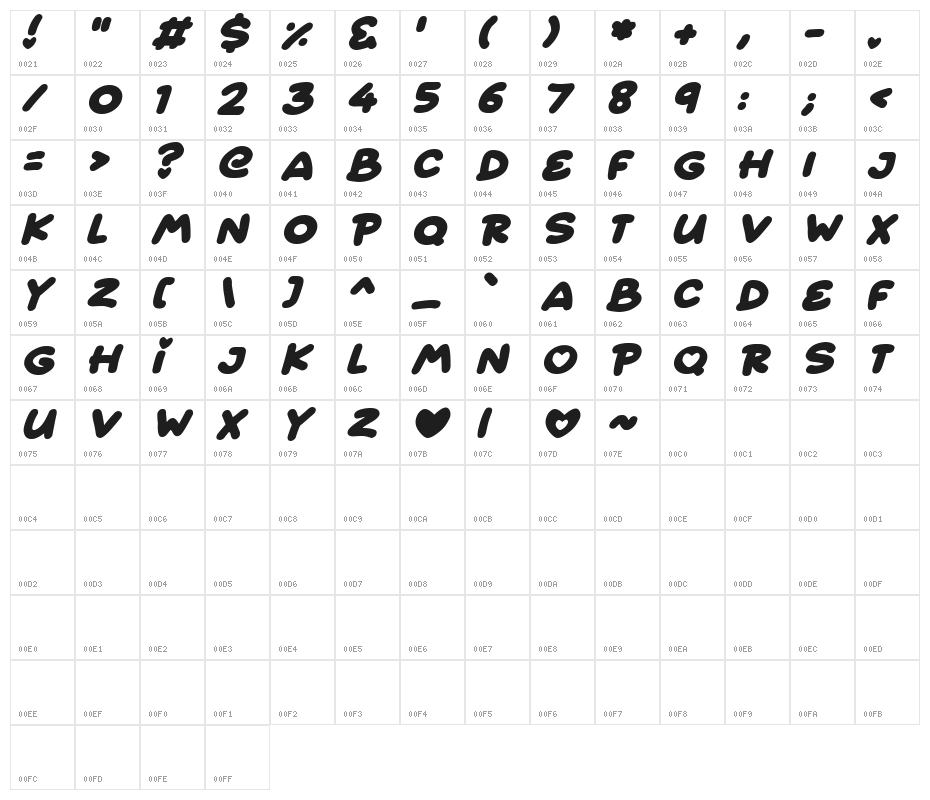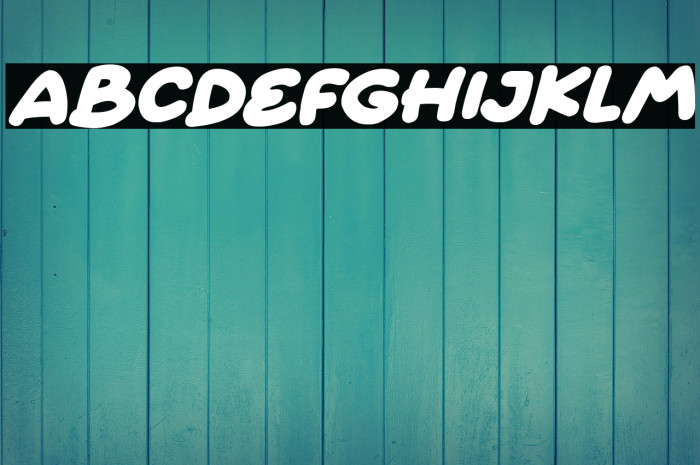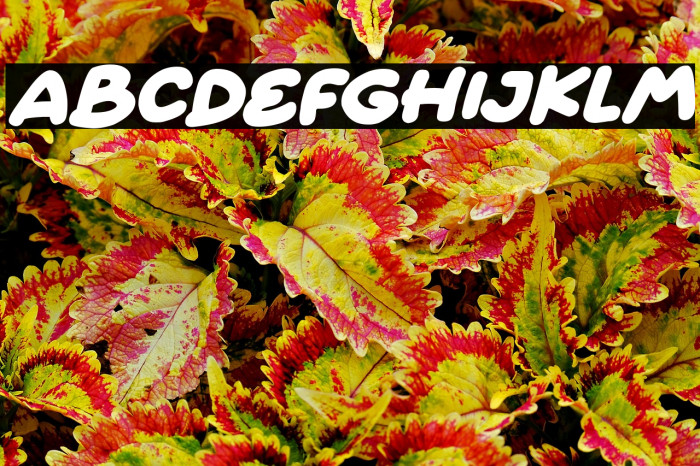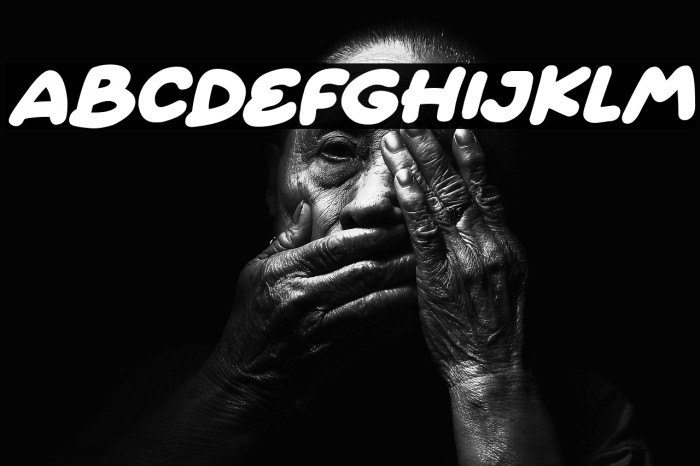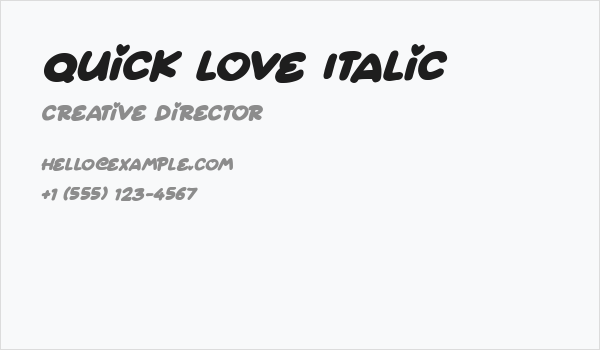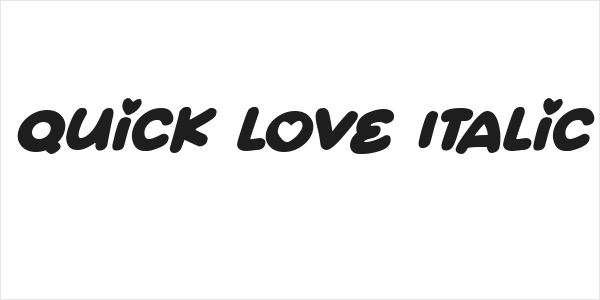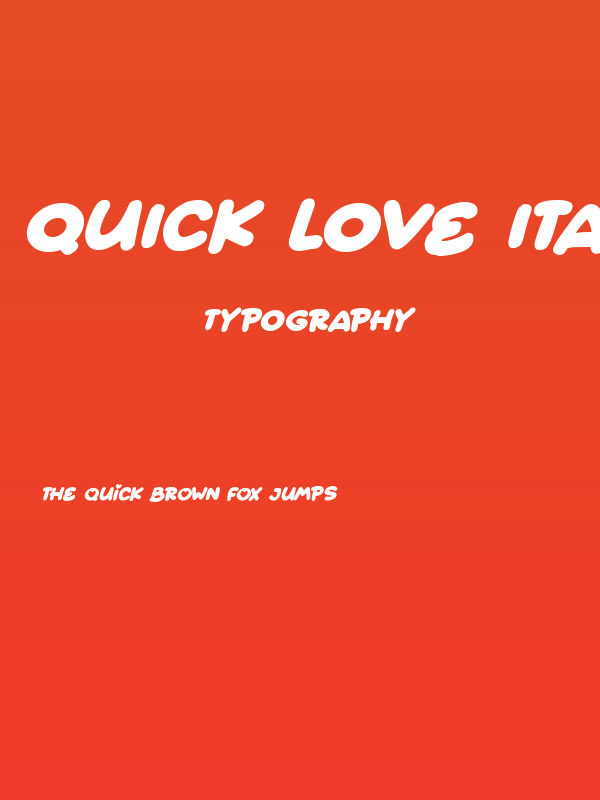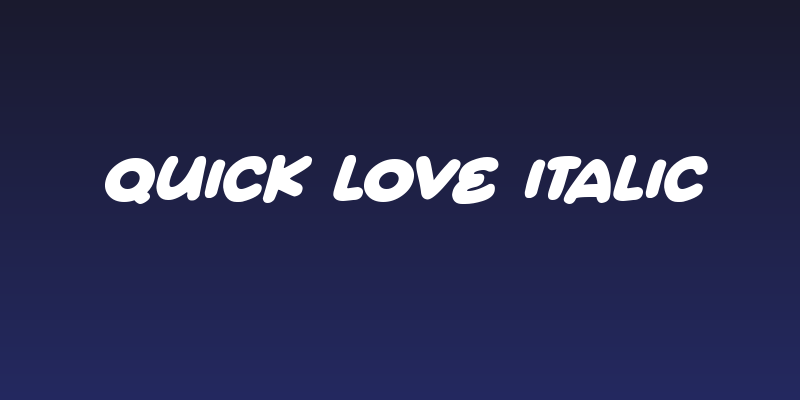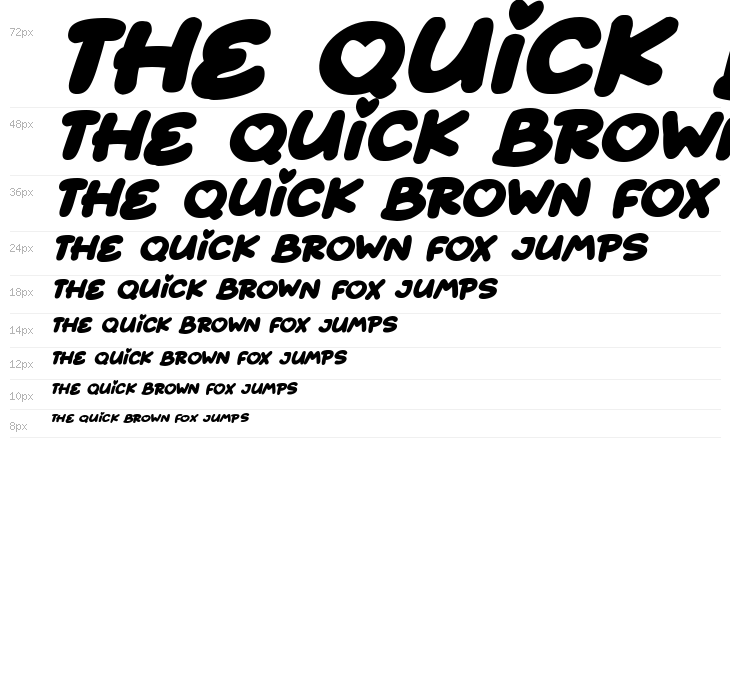
Quick Love Italic Font
Quick Love Italic Description
This font features a bold, playful style with a handwritten appearance. The letters are rounded and slightly italicized, giving a sense of movement and energy. The strokes are thick and consistent, providing a strong visual impact. The characters are closely spaced, enhancing the boldness and making it suitable for eye-catching designs. The font includes a full set of uppercase and lowercase letters, numbers, and a variety of special characters, making it versatile for different uses. Its unique style is perfect for projects that require a fun and informal touch.
| Proposed Projects | Ideal for greeting cards, playful branding, children's books, and social media graphics. |